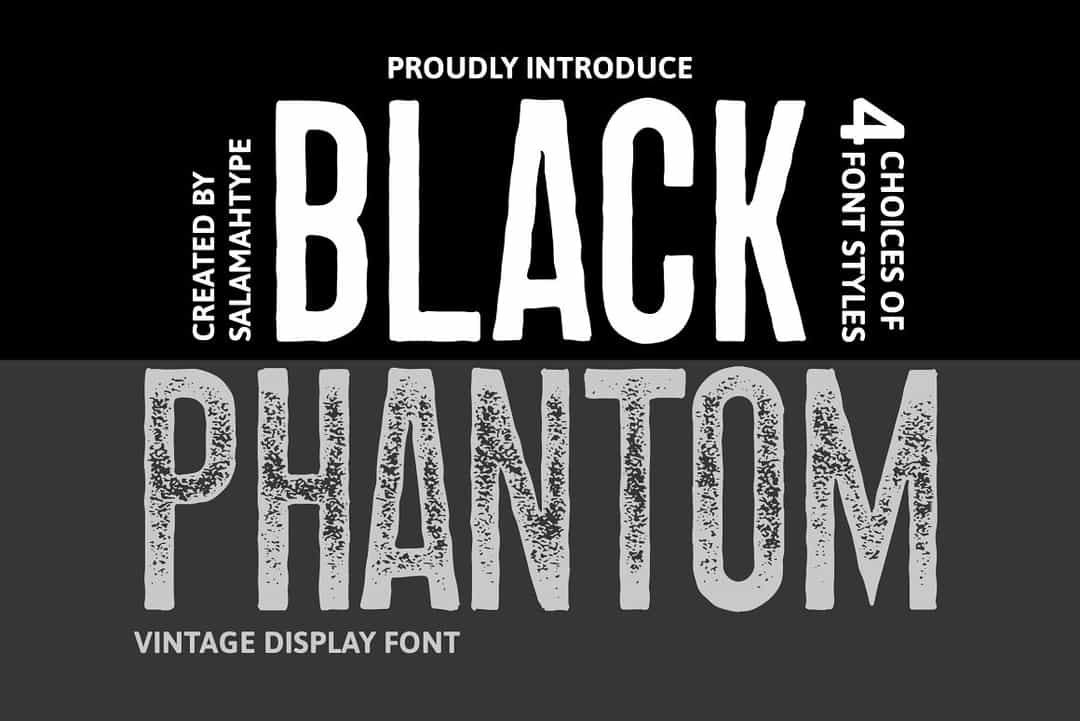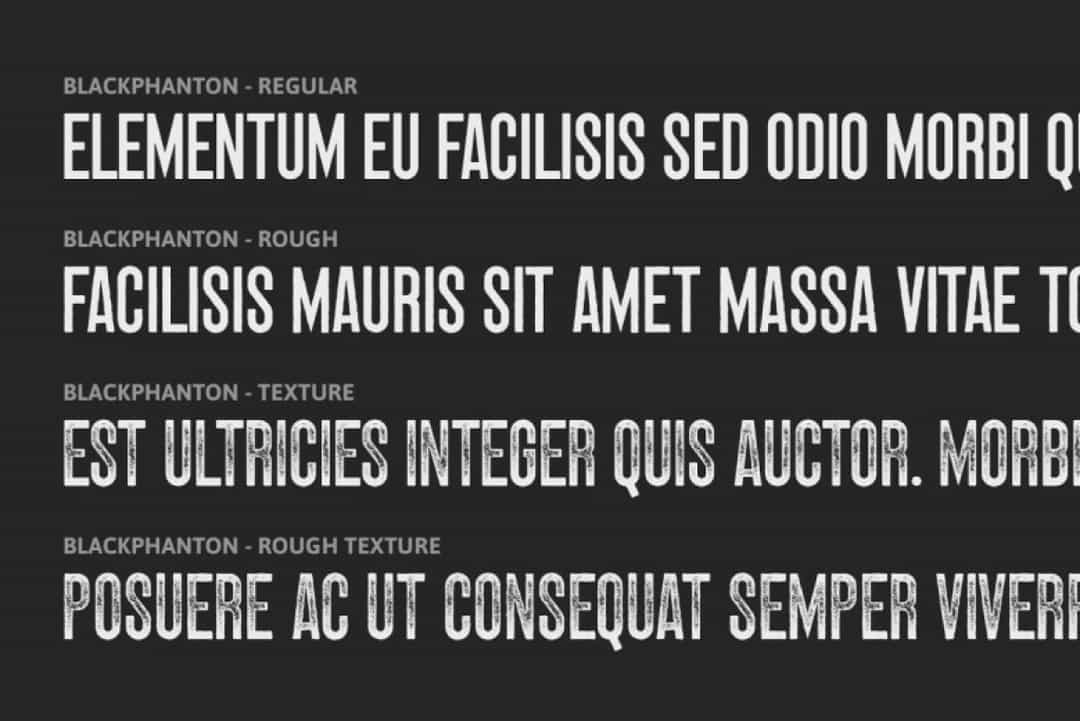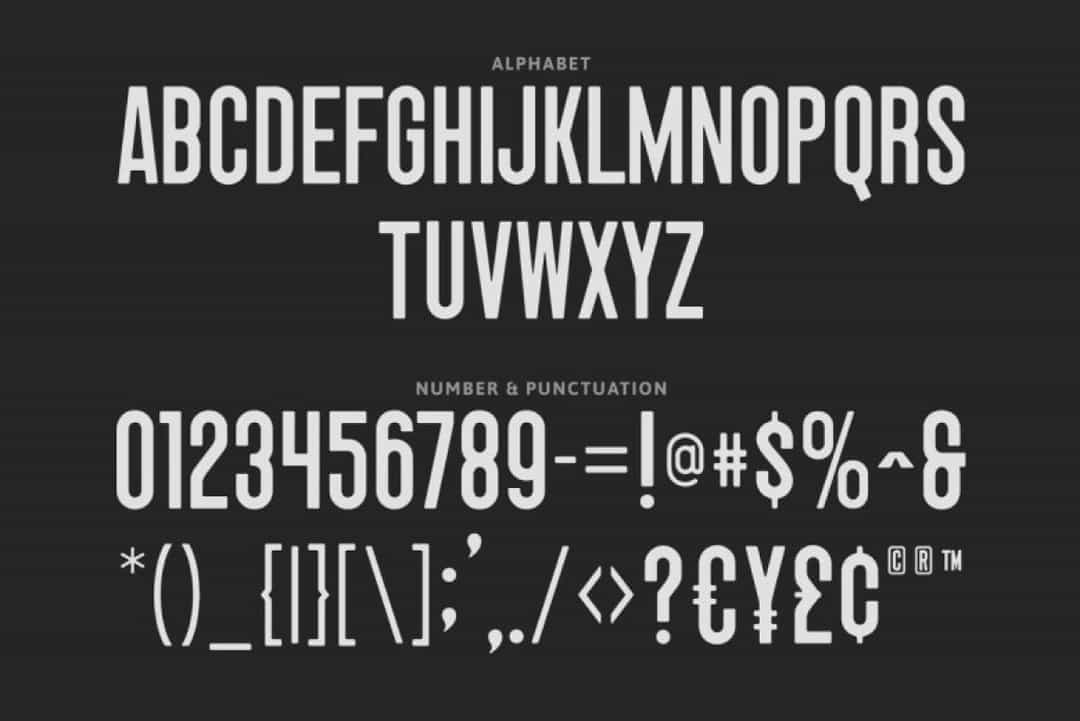
Black Phantom Font
Hello and welcome! We are pleased to introduce “BLACK PhantOM”, our display sans font that comes in four styles (Clear and Textured/Stamp). Perfect for logos, branding projects and labels alike – with its Rust core texture making your product, design or label look more modern and meaningful!